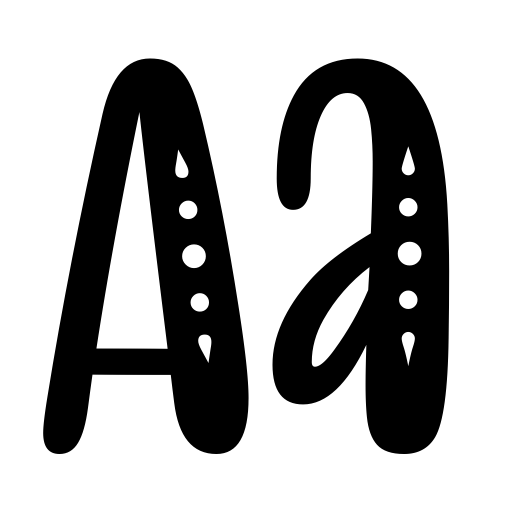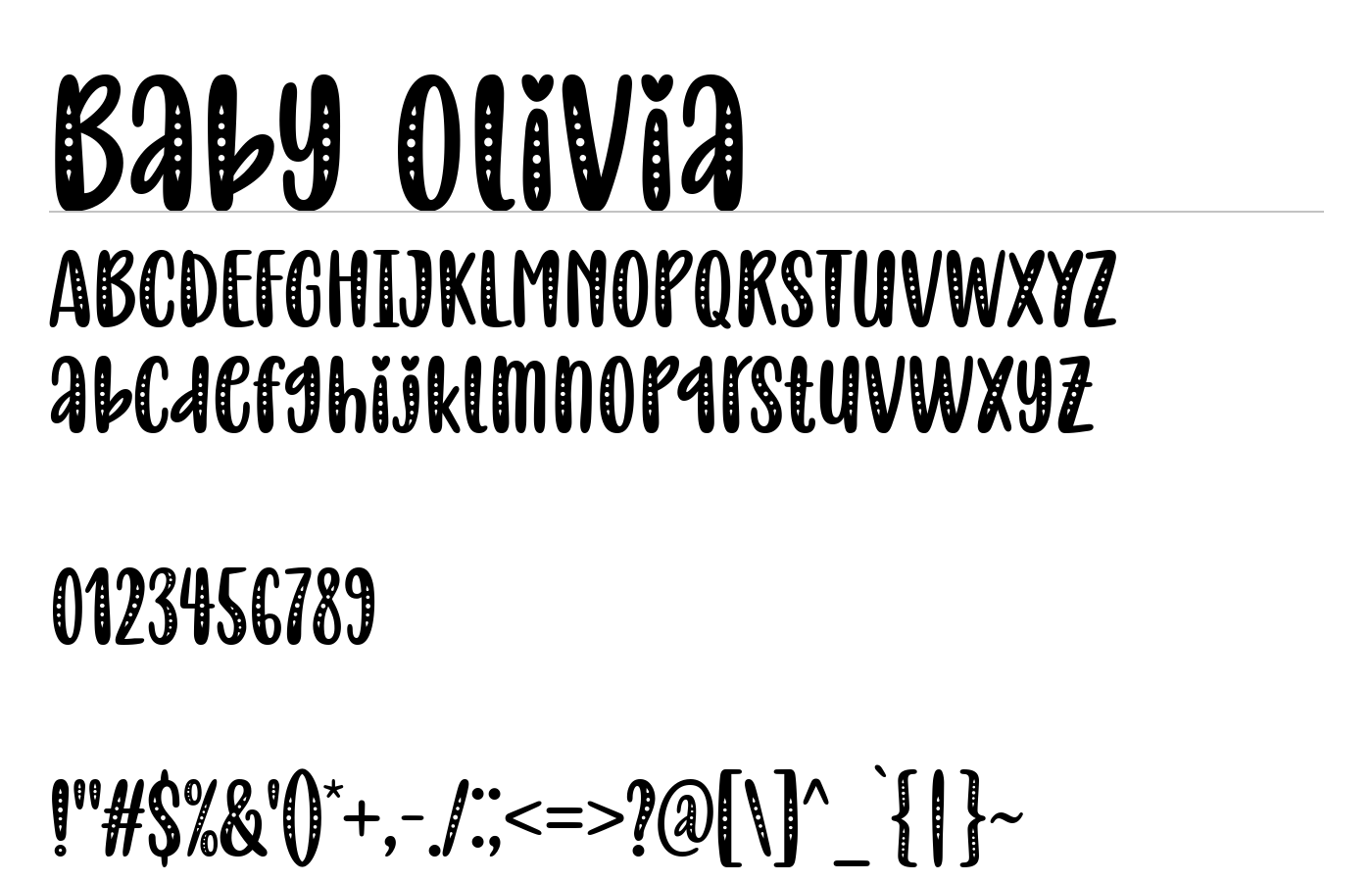
Baby Olivia is a playful, hand-drawn sans serif font with bold, slightly condensed letterforms featuring whimsical dotted decorations inside each character. Its tall x-height and rounded shapes create a friendly and charming vibe, perfect for kids’ products, invitations, and casual branding. This font works well in headlines and logos where a fun, approachable look is needed to attract attention and convey warmth.
Baby Olivia Font
About Baby Olivia Font
| Font family | Baby Olivia Font |
| Designer | Situjuh Nazara |